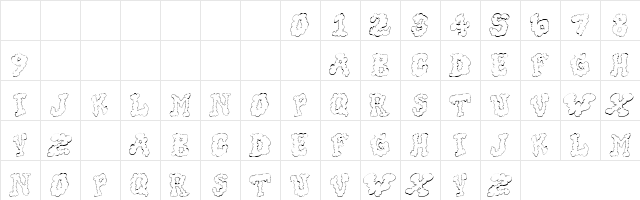
101! Smoke BillowZ Regular
Design Context for 101! Smoke BillowZ Typeface
101! Smoke BillowZ is a composed and adaptable typeface that performs quietly and consistently across a wide range of design contexts.